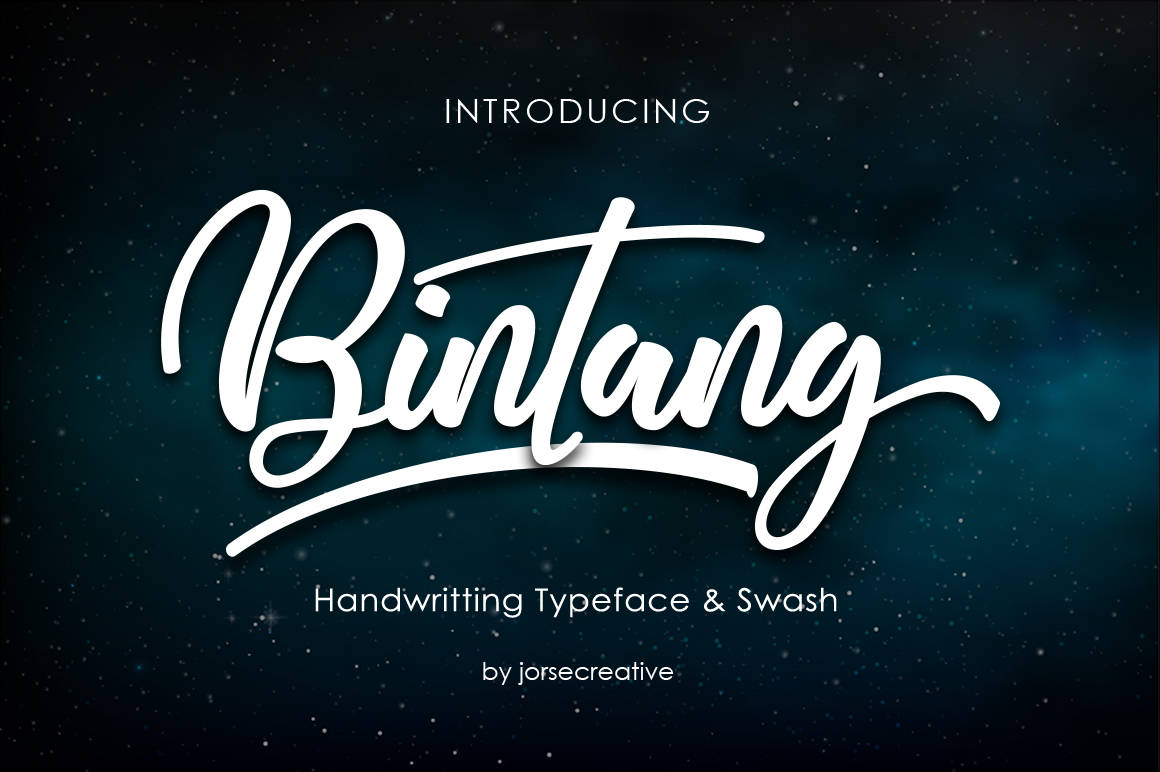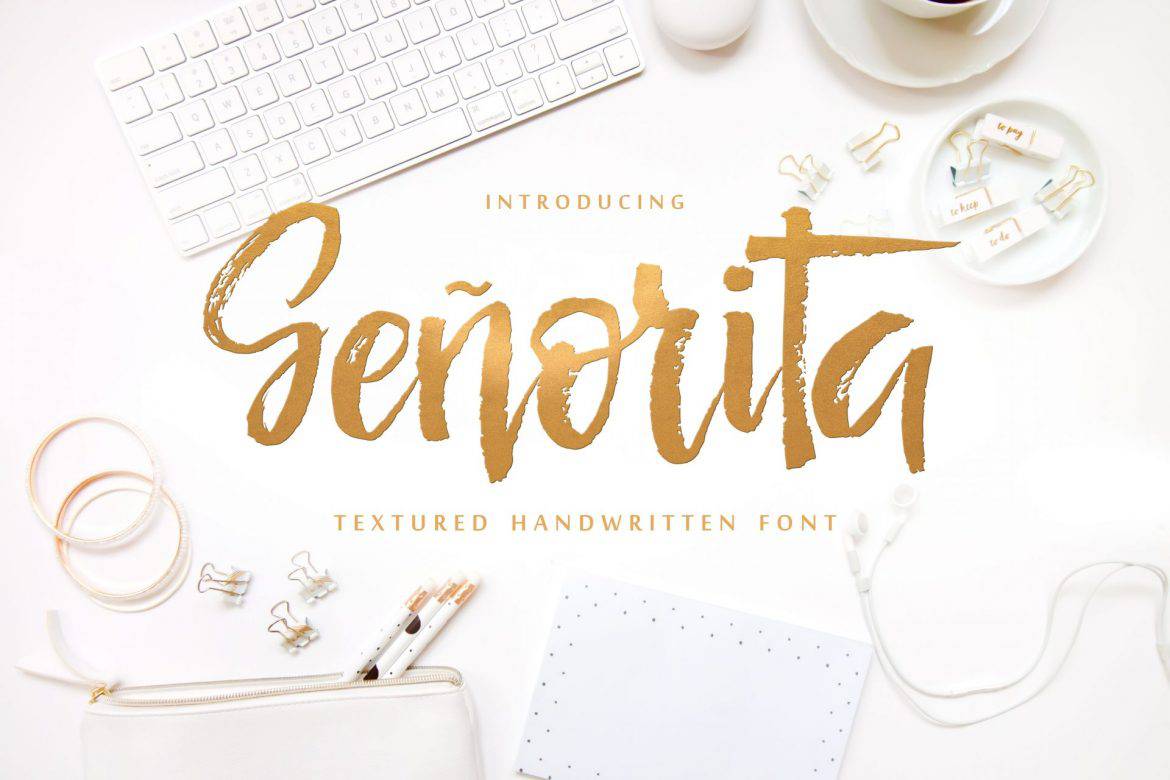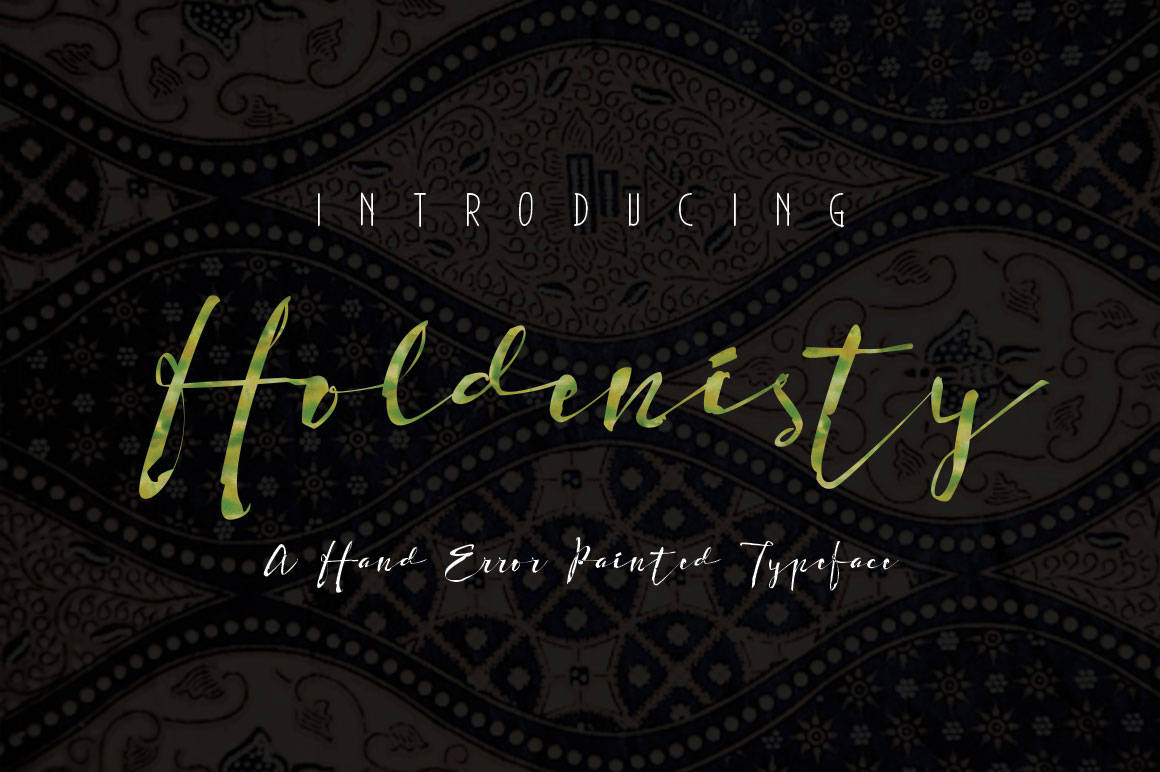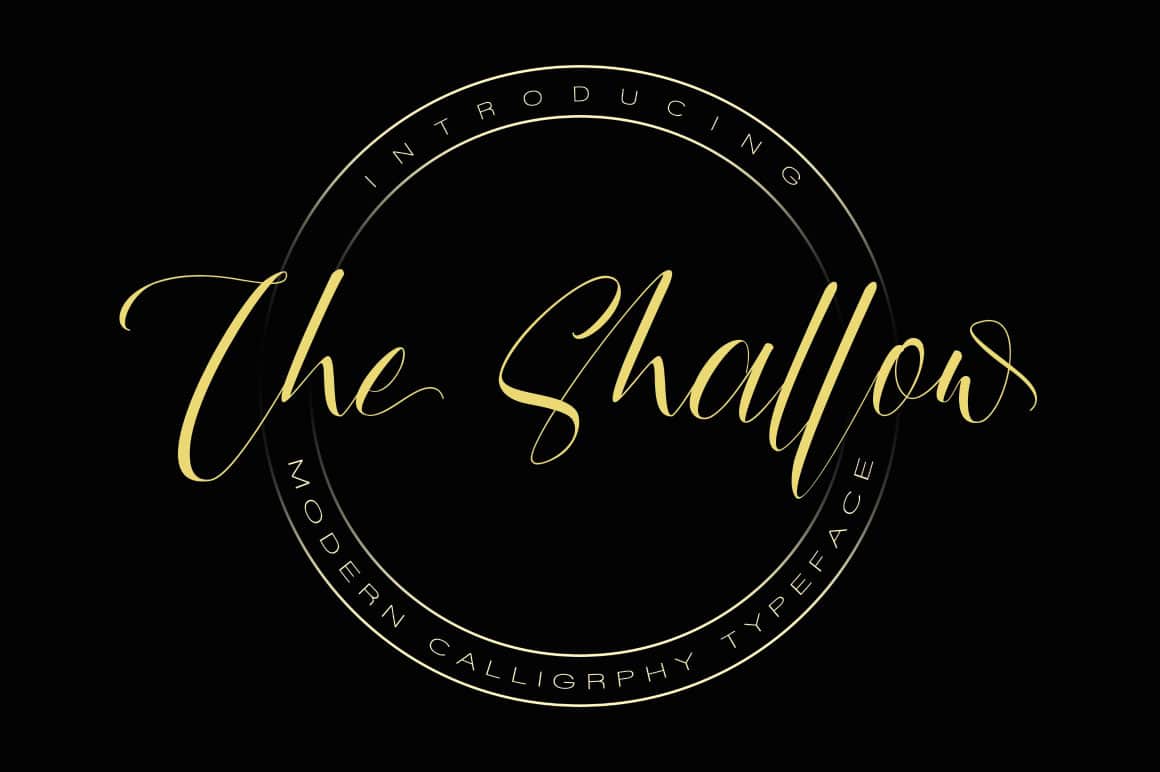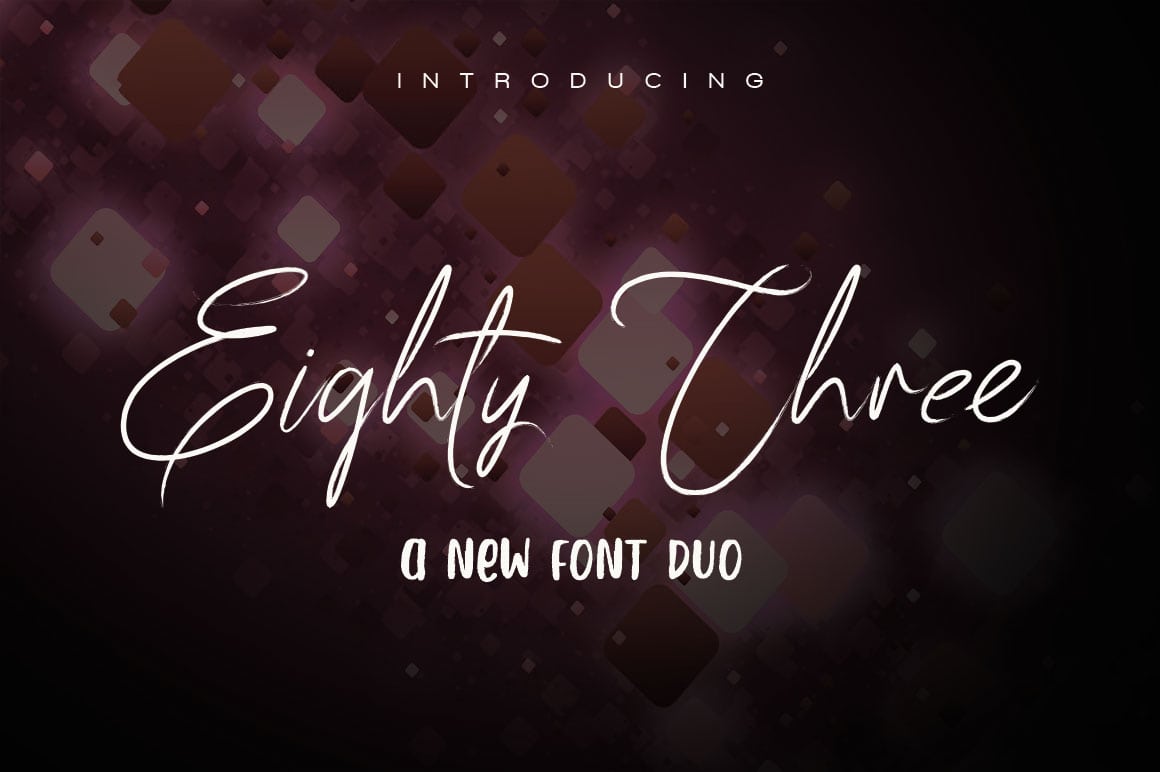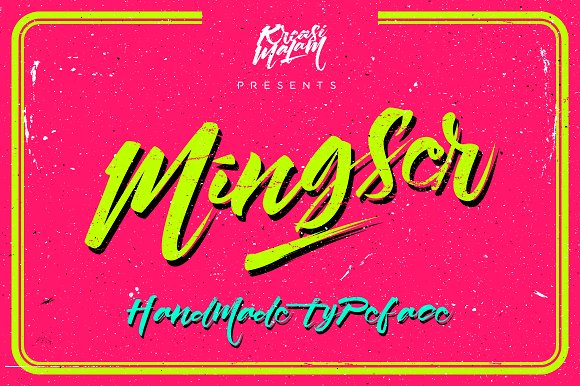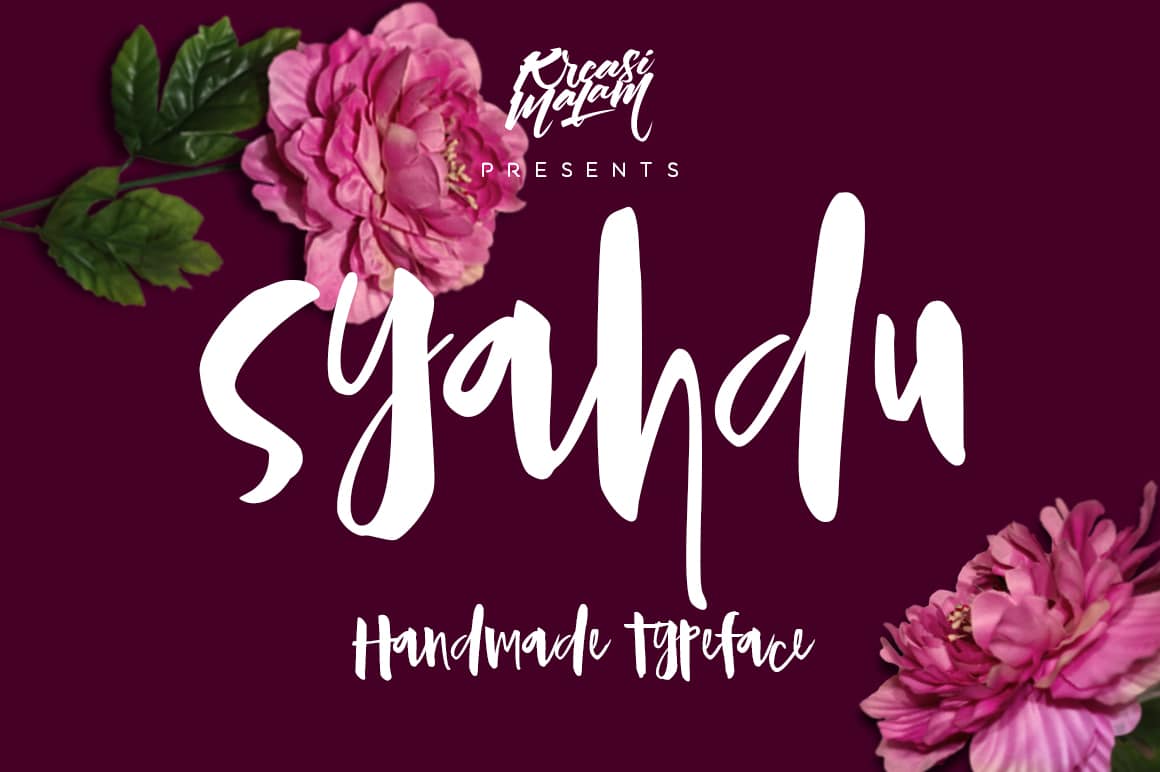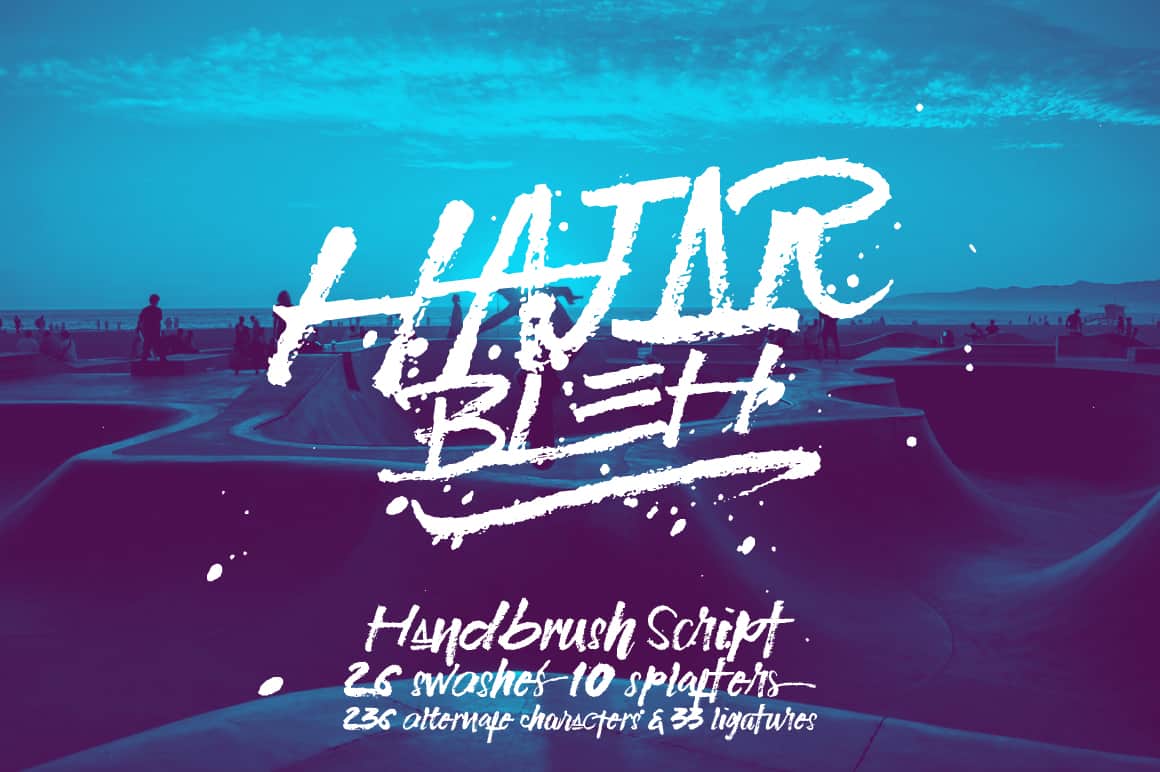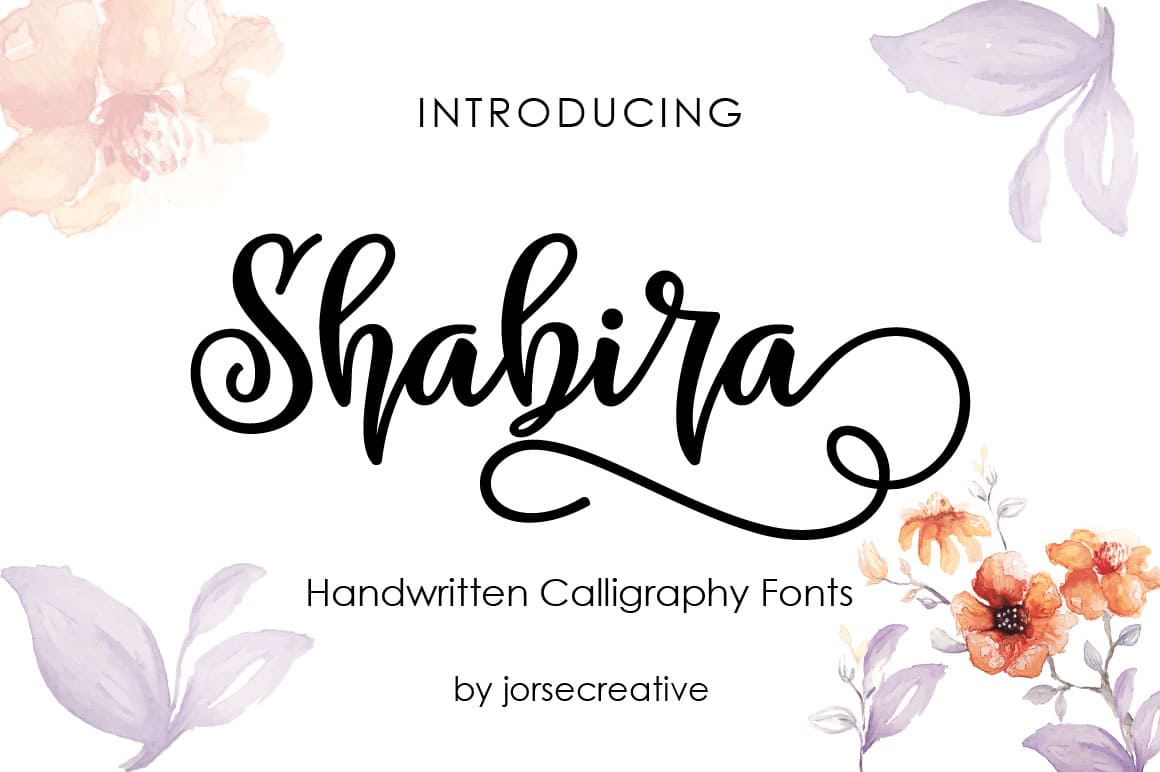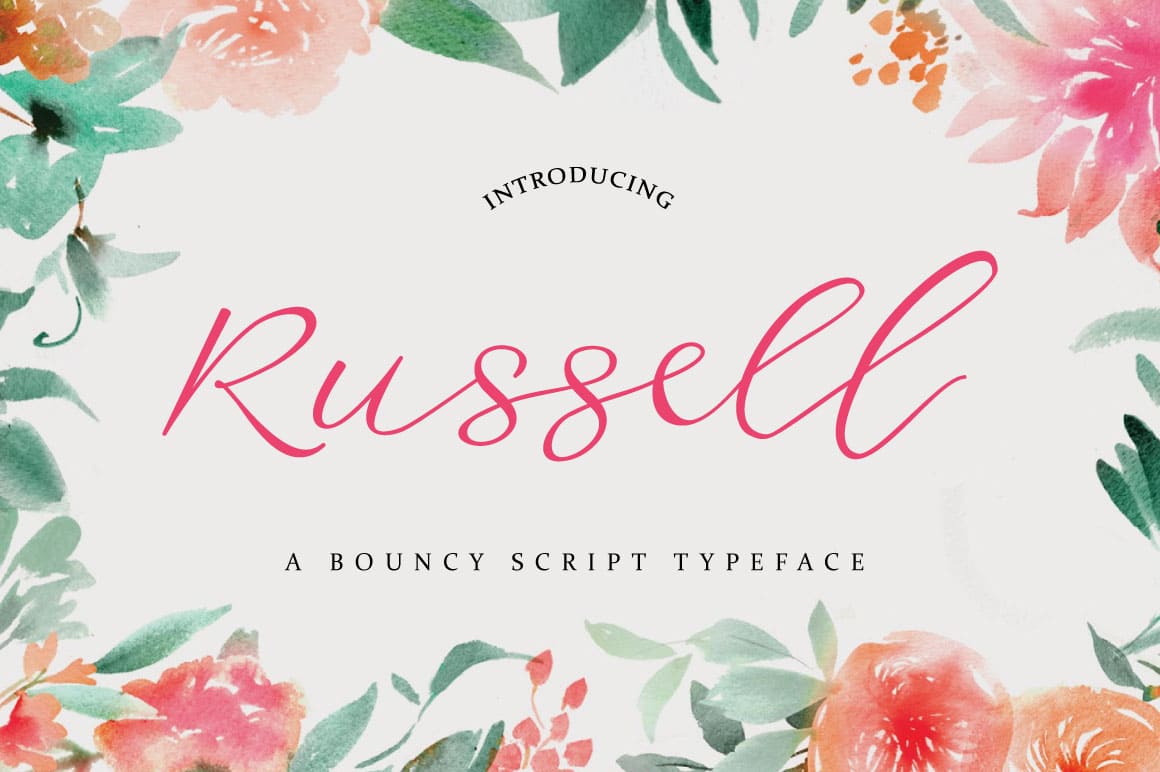
1. Bintang Font
Bintang is a stunning brush style script. It’s unique looks are inspired by modern calligraphy.
2. Señorita Font
Señorita script is a dry brush that will add an amazing unique touch to your designs.
The font includes extensive language support.
3. Holdenisty Font
Holdenisty, a handwritten script with a rough feel.
4. The Shallow Font
The Shallow is a clean, classy handwritten font that comes in 2 variations: The Shallow & The Shallow Alternate.
It has a very natural flow, making your designs look dynamic!
5. 83 Script Font
83 Script is a clean, classy signature style font duo.
It’s fluid and flashy but has a very natural vibe. It’s suitable for many different uses and includes 2 fonts: 83 Script & 83 Sans.
6. Mingser Font
Mingser is a fun handmade calligraphy font. It will allow you to add a quick & playful touch to your projects.
7. Syahdu Font
Syahdu is a playful calligraphic-style typeface. It will allow you to add a personal touch within seconds to your designs and works great for many different types of projects.
8. Hajar Bleh Font
Hajar Bleh is a handwriting font featuring a fun, unique style. It works well on designs that need to be expressive, such as logos, apparel, etc.
9. Shabira Font
Shabira is a hand-written typeface with a fun playful character. It has a flowing baseline, adding instant creativity to your projects.
10. Russell Font
Russell is a fun, bouncy handwritten script that is great for adding a quick personal touch to your designs.
It’s dynamic and has a well-ordered appearance which makes it very legible and useful for many projects. This includes also body text.